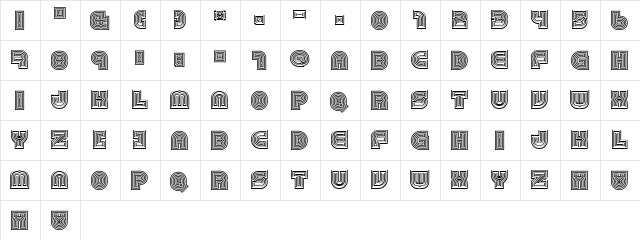
Design Context for 79 Typeface
79 wears its vintage influences proudly, with letterforms that recall mid-century signage, classic packaging, and nostalgia-driven design.
Ideal for diner signage, record shop branding, 70s/80s-themed projects, and heritage product labels.
Font Pairing: Combine 79 with a simple slab or neutral sans — period-accurate companions reinforce the vintage feel without competing for attention.
Pro Tip: Lean into 79's period character by pairing it with aged paper textures, muted colour palettes, and vintage illustration styles.